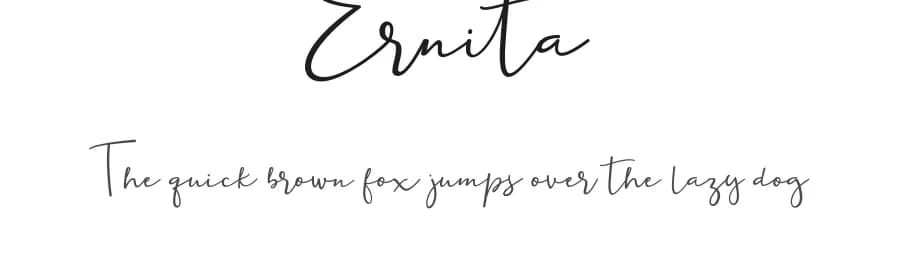
About Ernita Font
Ernita is a simple script typeface which is simple and funny.
Good for Logos, Titles, Tees Design or Indie flyer and Poster.
Ernita Font is a script font that shines as a display or heading face. Pair it with a clean sans-serif or serif font for body text β the contrast creates a clear hierarchy while the two styles stay balanced and easy to read.
Ernita Font